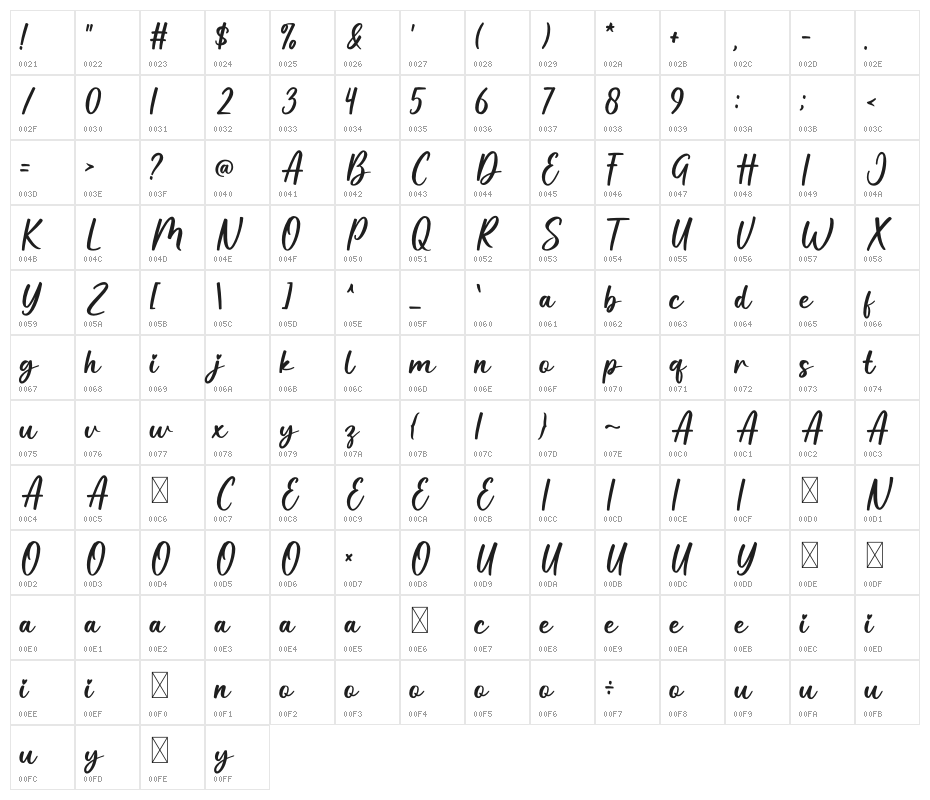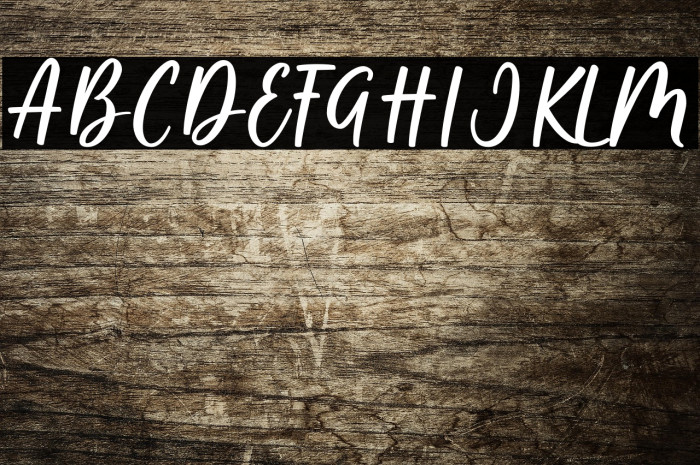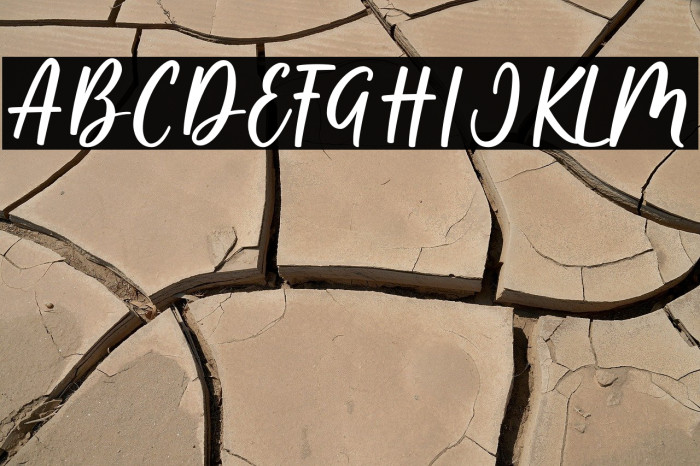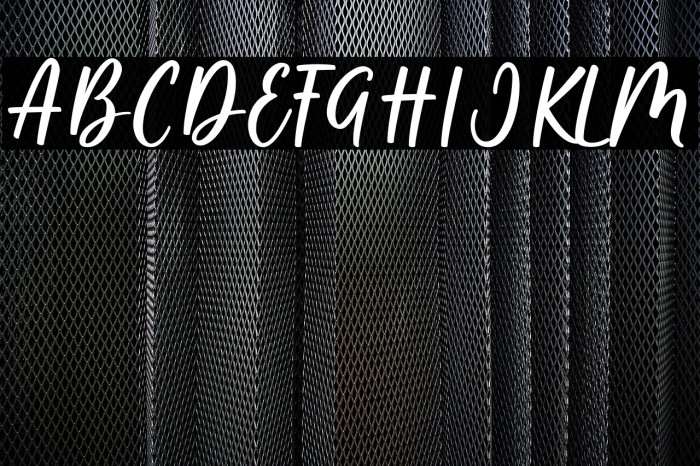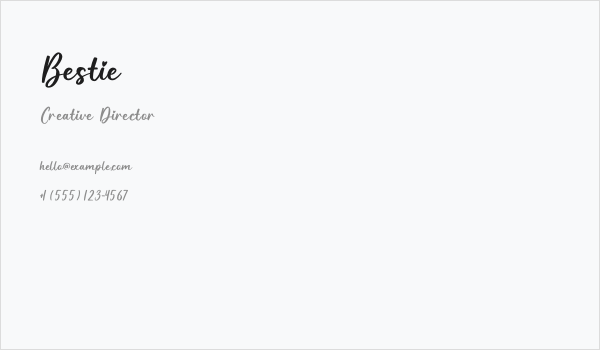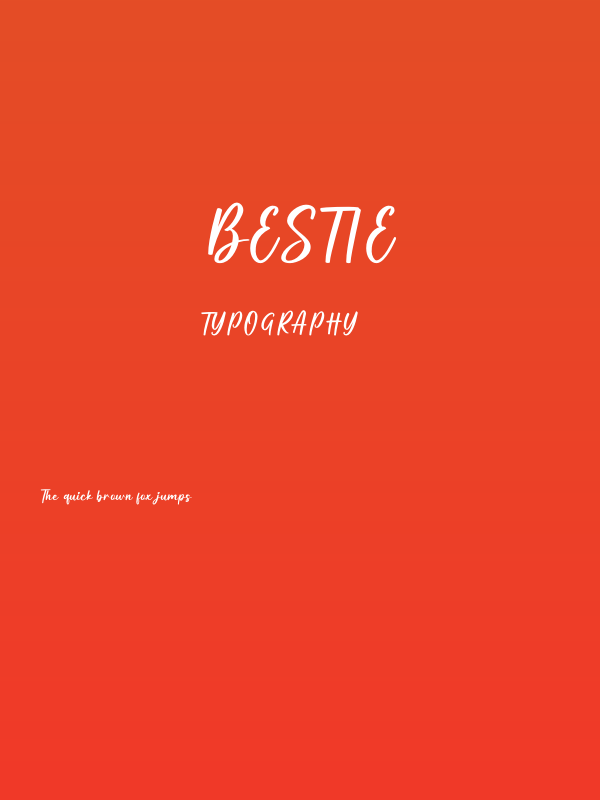
Bestie Font
Bestie Description
This font features a lively and expressive handwritten style, characterized by its fluid and connected letterforms. The uppercase letters are bold and slightly slanted, giving a dynamic and energetic feel. The lowercase letters maintain a consistent flow, with some characters featuring unique loops and curls that add personality. The numerals are clear and legible, with a slight slant that complements the overall style. Special characters are creatively designed, maintaining the playful and informal aesthetic. This font is perfect for projects that require a personal touch, such as invitations, greeting cards, or branding materials.
| Proposed Projects | Ideal for invitations, greeting cards, branding, and any project needing a personal touch. |